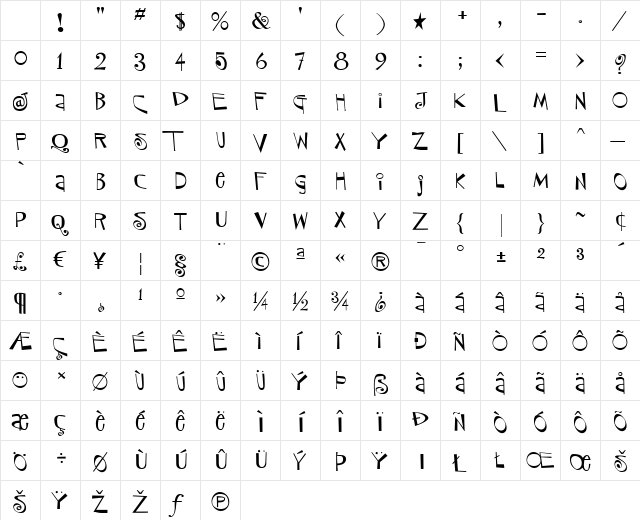
Complete P22 Sniplash Regular glyph index. Displaying only characters natively supported by P22 Sniplash Regular font.
P22 Sniplash is a composed and adaptable typeface that performs quietly and consistently across a wide range of design contexts.